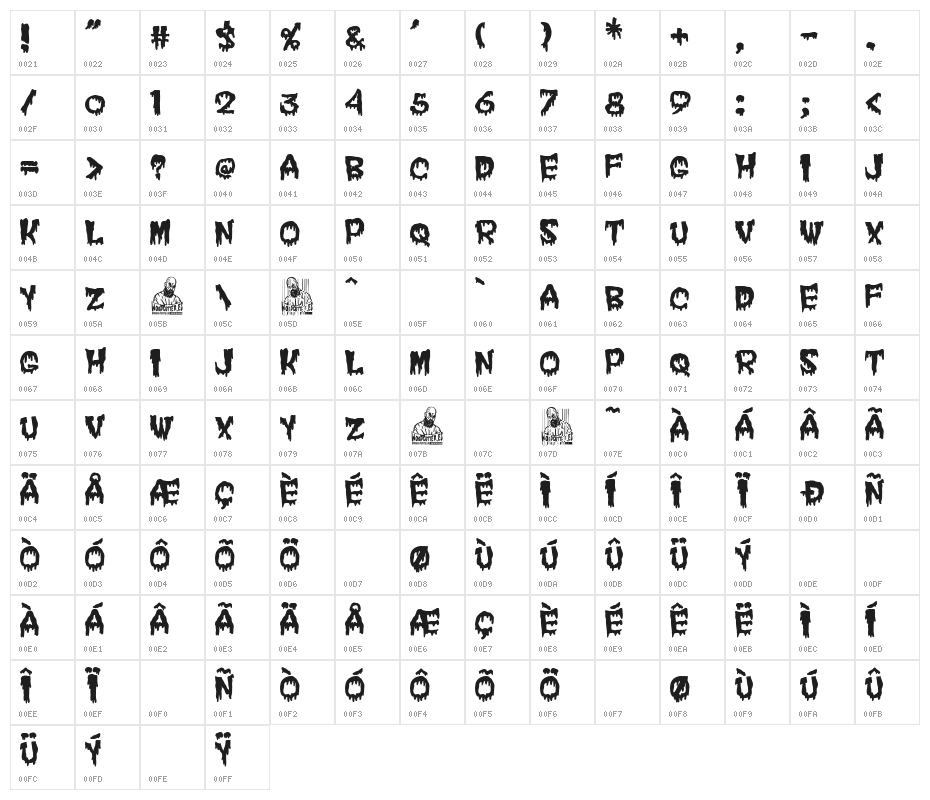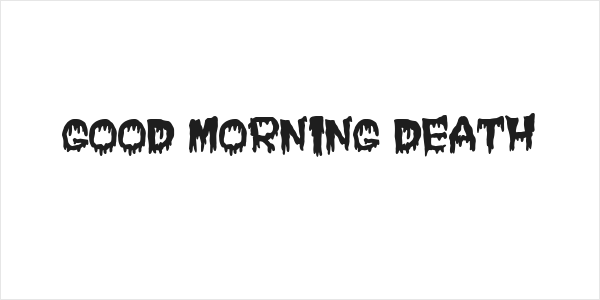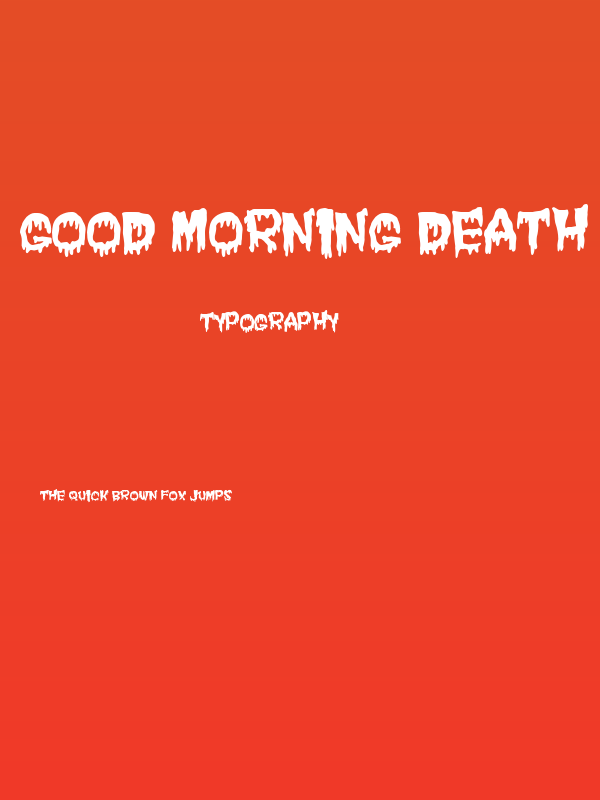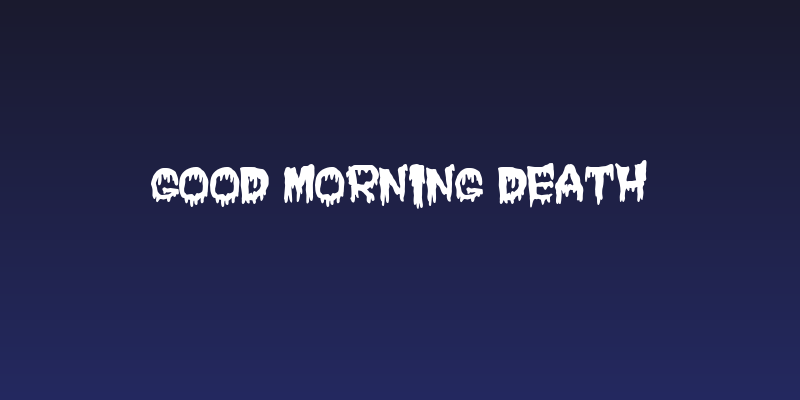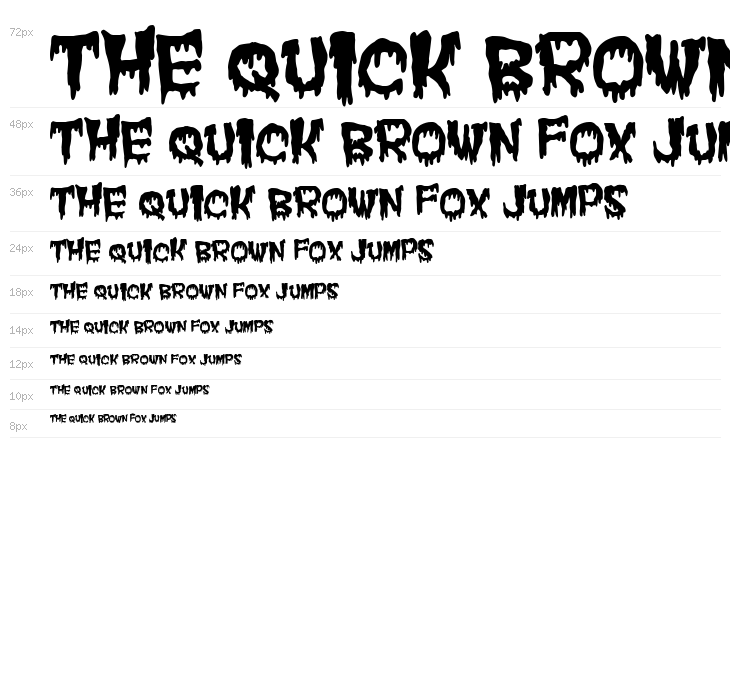
Good Morning Death Font
Good Morning Death Description
A bold, dripping, horror-inspired display font with irregular edges and a melting effect, giving a spooky and unsettling appearance. All characters, including numbers and punctuation, share the same dripping motif, making the style highly decorative and thematic.
| Overall Style | Decorative, Horror, Thematic |
| Use Case | Headlines, Posters, Event Flyers, Logos |
| Proposed Projects | Halloween posters, horror movie titles, haunted house flyers, spooky event invitations, themed merchandise. |